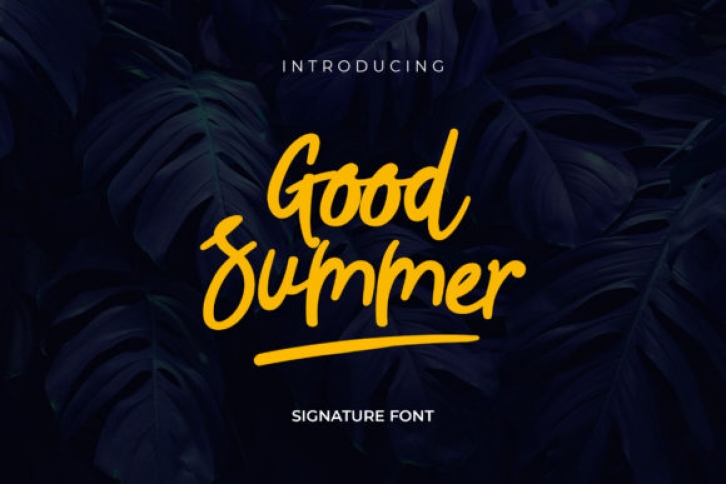
Good Summer is a sweet and relaxed handwritten font. It is the best choice for creating eye catching logos, branding and quotes. Every letter has a unique and beautiful touch, which will make your design come alive!